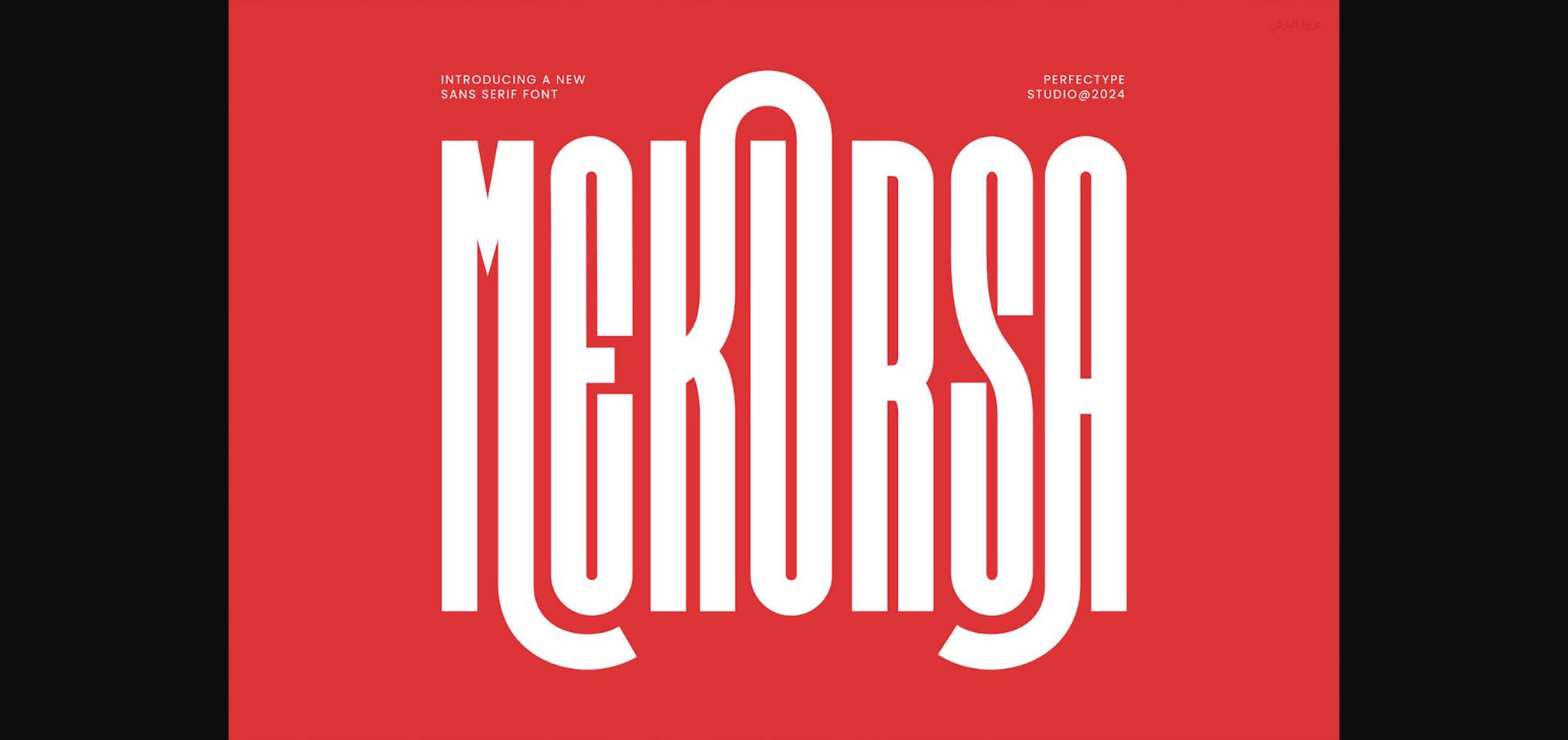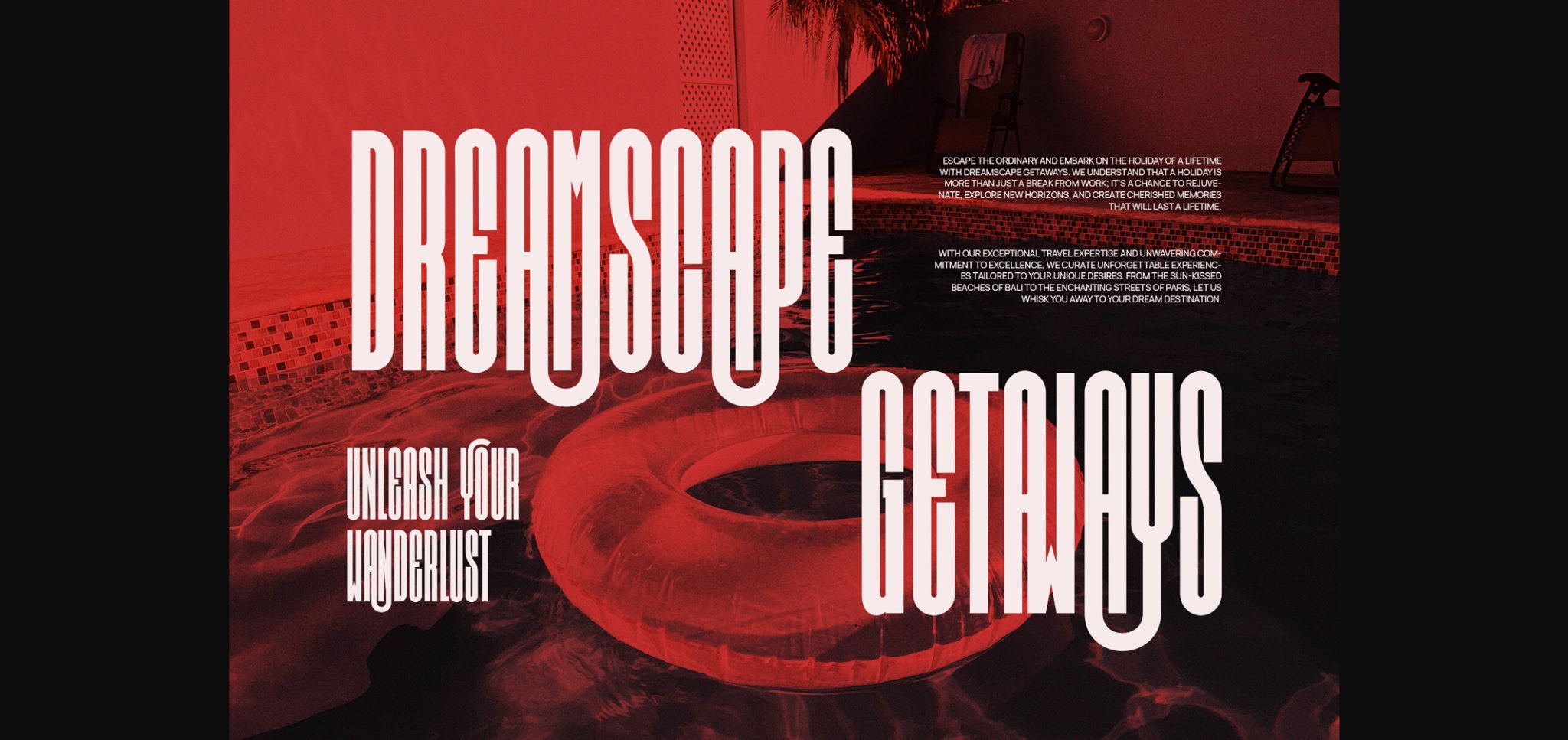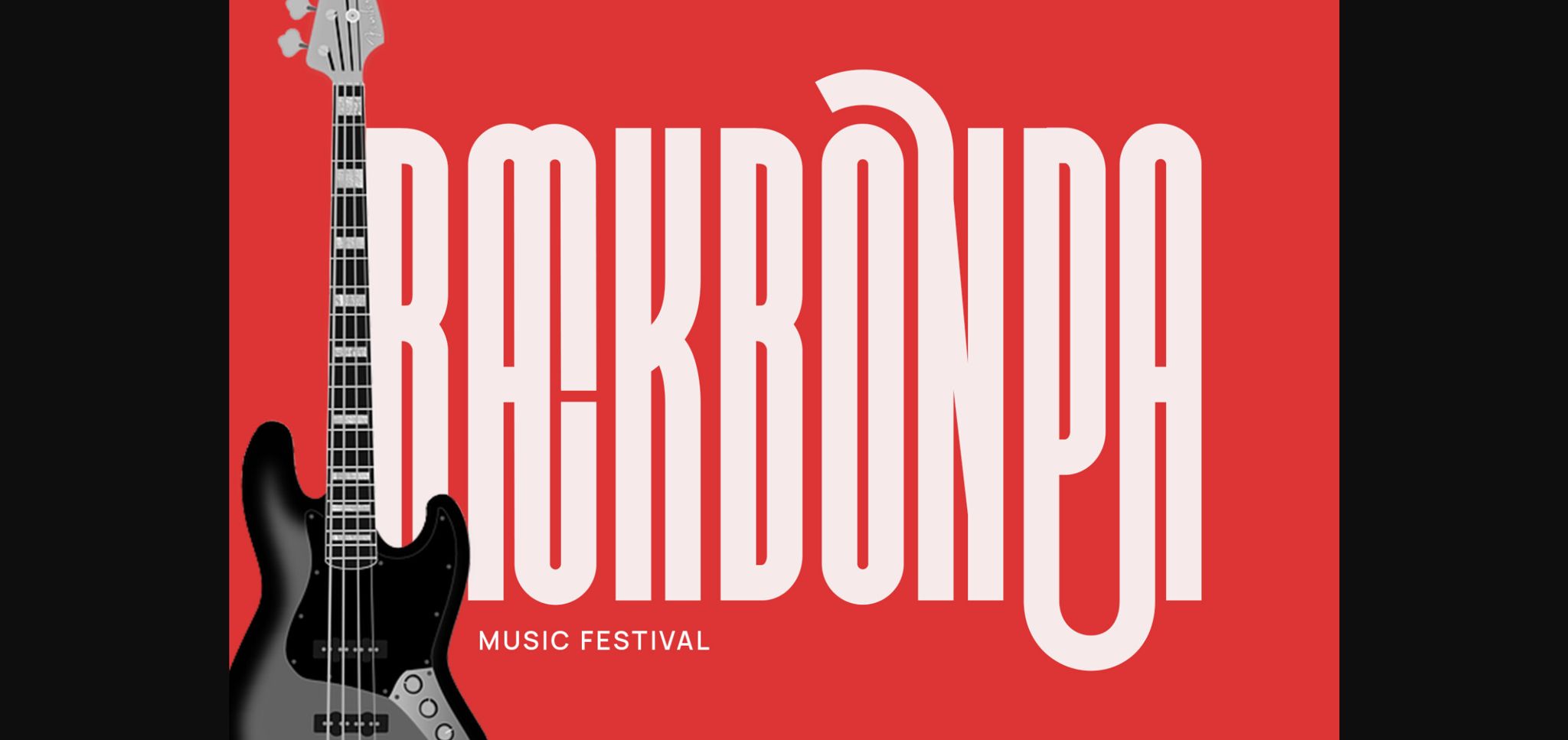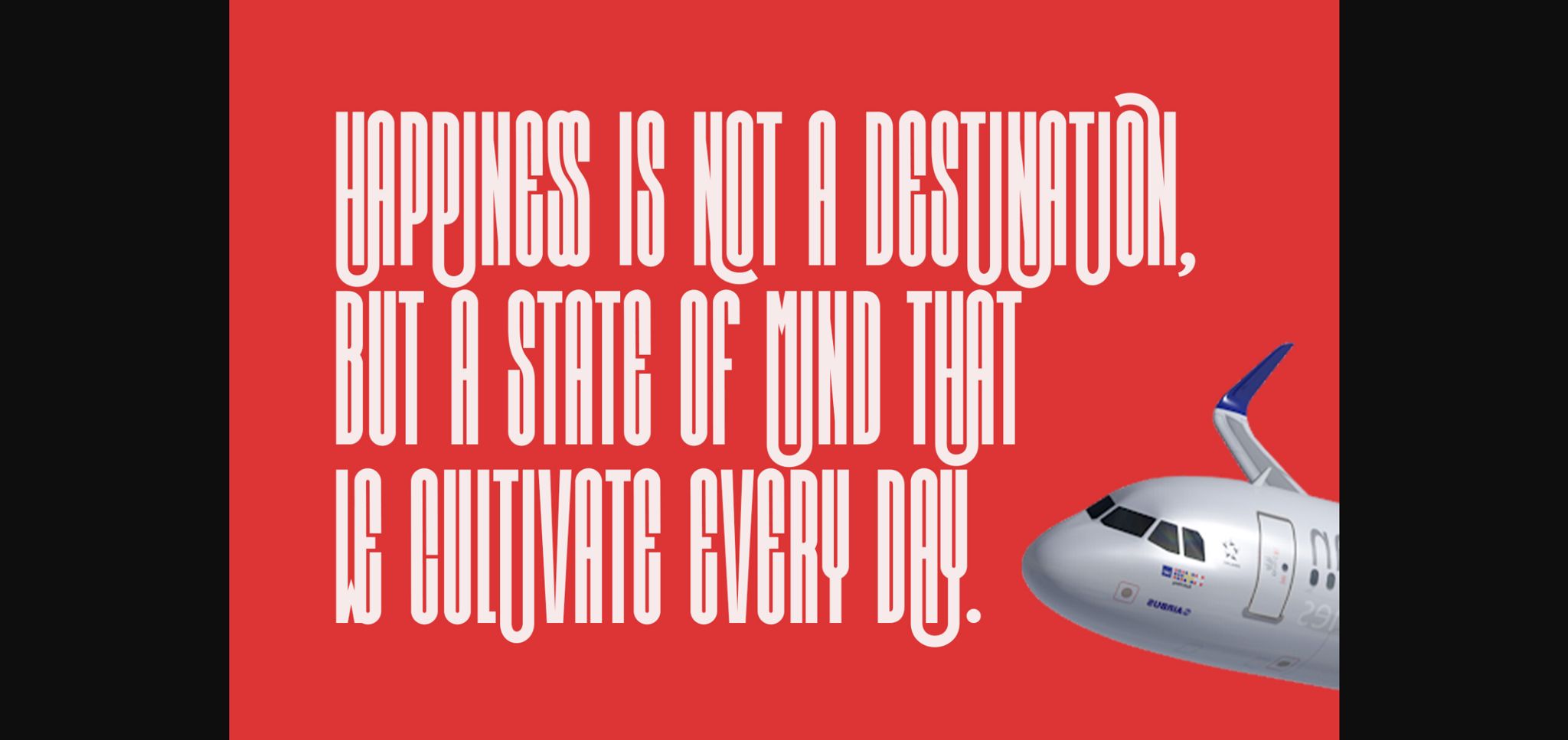
About Mekursa Font
Mekursa is a contemporary and stylish typeface that embodies modern design trends. Its clean lines and sleek curves convey sophistication and versatility, making it perfect for branding, headlines, and editorial layouts. With a touch of elegance, Mekursa brings a fresh and trendy aesthetic to any project.